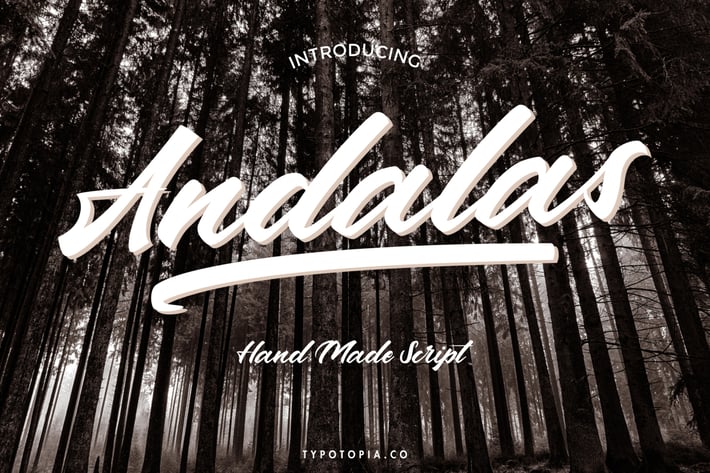
Andalas Script Font
Introducing Andalas Script Font a Stylish Modern Calligraphy Font with Casual Style. This perfect for the purposes of designing templates, brochures, videos, advertising branding, logos and more.
+ Multilingual Support
Fonts include multilingual support for; Afrikaans, Albanian, Catalan, Czech, Danish, Dutch, English, Estonian, Finnish, French, German, Hungarian, Italian, Latvian, Lithuanian, Norwegian, Polish, Portugese, Slovak, Slovenian, Spanisch, Swedish.